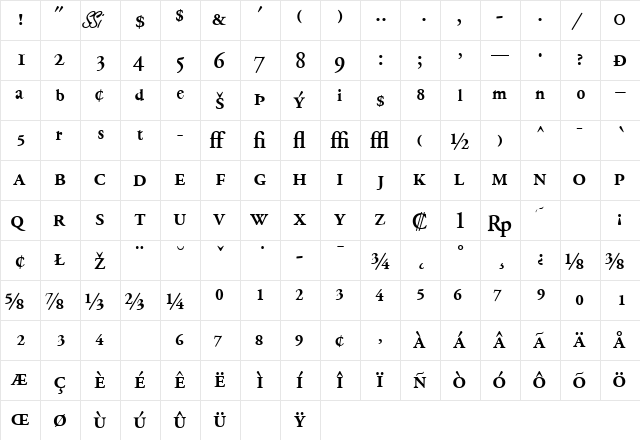
GaramondProSSK Bold
Design Context for GaramondProSSK Typeface
GaramondProSSK offers clean, dependable letterforms without strong stylistic allegiance, making it a practical choice for designers who need flexibility. Its bold stroke weight gives it real presence on the page.